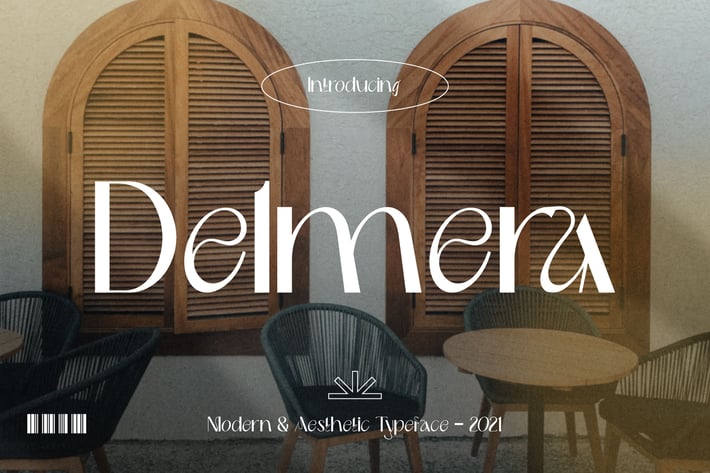
Modern & Aesthetic - Delmera Font
Delmera is fonts includes uppercase letters, lowercase letters, numerals, ligatures & a large range of punctuation. Modern & Aesthetic Look. Created for poster, web design, branding, illustrations, badges and some other works.
The Delmera font includes:
Uppercase Letters
Lowercase Letters
Ligatures
Special Characters
Multilingual Glyphs